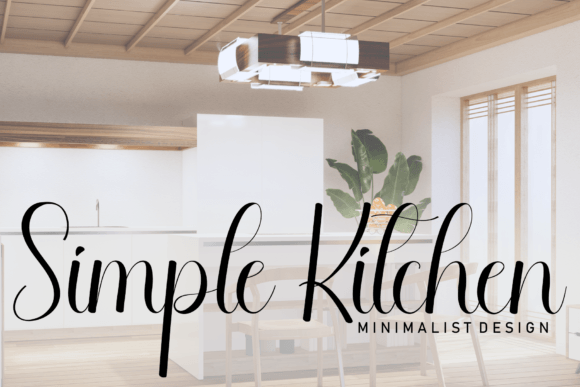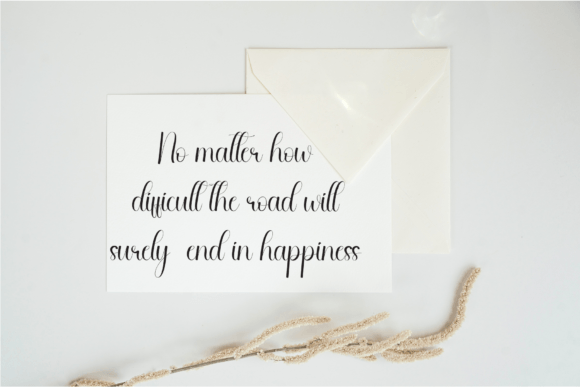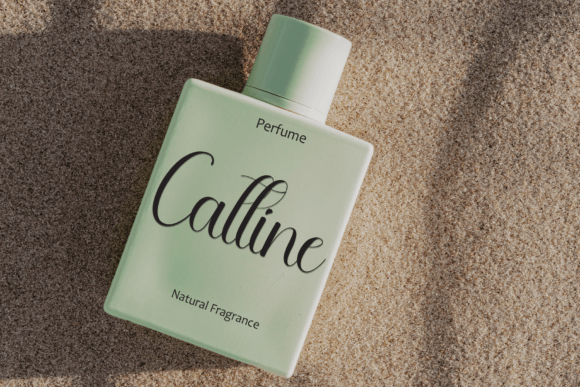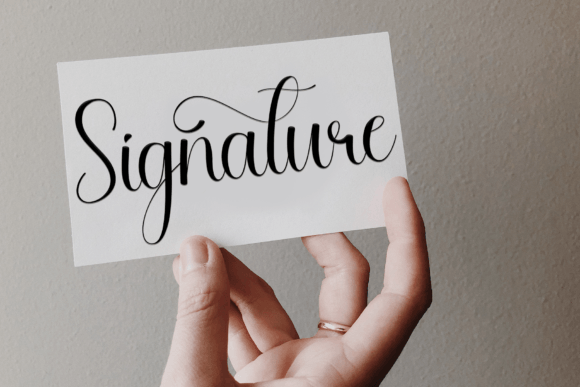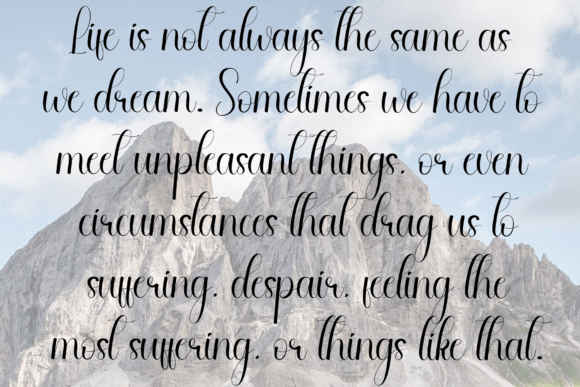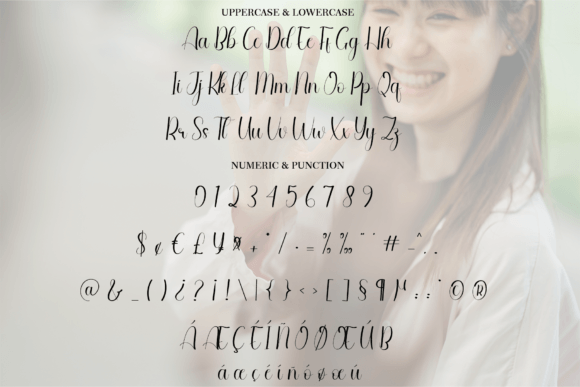
The Perfect Script for a Special Occasion
As a designer, there’s nothing quite like the thrill of creating something special for a client – like a wedding invitation or a heartfelt birthday card. It’s that moment when you get to put your creative stamp on a project and make it truly unforgettable. And, for me, that moment often starts with the perfect font. Which is why I’m excited to introduce you to the Goodday Font – a sweet and friendly handwritten font that’s sure to add a lovely touch to any design.
Goodday Font is the perfect choice for designers looking to add a fresh and casual feel to their work. Its versatility makes it ideal for a wide range of projects, from wedding invitations to greeting cards. And, with its friendly and approachable vibe, it’s sure to make your designs stand out from the crowd.
Key Features of Goodday Font
- Unique Characteristics: The Goodday Font features a clean and modern design, with subtle rounded edges and a balanced x-height, making it suitable for a wide range of applications, including body text, headings, and titles.
Goodday Font Review
I recently had the chance to work with the Goodday Font, and overall, I found it to be a solid choice for a clean and modern design.
- ✨ Elegant and minimalist aesthetic: Goodday Font is perfect for creating a sophisticated and understated visual identity.
- ✨ Good legibility: The font is easy to read, even at smaller font sizes, making it ideal for body text and captions.
- ✨ Versatile: Goodday Font works well in both digital and print formats, making it a great choice for designers who need a font that can adapt to different mediums.
However, there are some limitations:
- ⚠️ Limited expressive range: While Goodday Font is great for clean and minimalist designs, it may not be the best choice for more playful or creative projects.
- ⚠️ Limited language support: Goodday Font may not support all languages, which could be a limitation for designers who need to create content in multiple languages.
Overall, I would say that Goodday Font is a reliable and effective choice for designers who want a clean and modern font. While it may not be the best choice for every project, it’s definitely worth considering for designs that require a sophisticated and understated aesthetic.